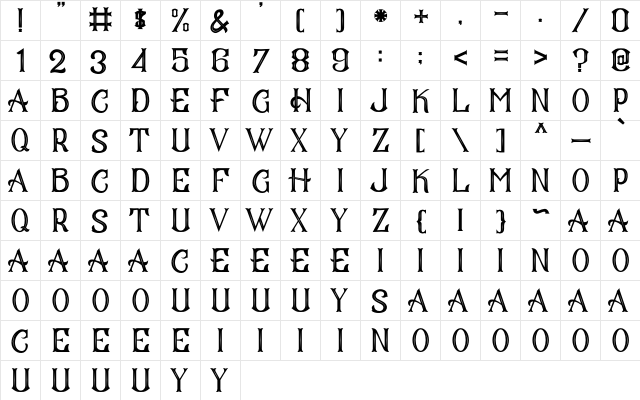
CS Mulan Inner Regular
| Designer | Craft Supply Co. |
Design Context for CS Mulan Inner Typeface
CS Mulan Inner is a composed and adaptable typeface that performs quietly and consistently across a wide range of design contexts.